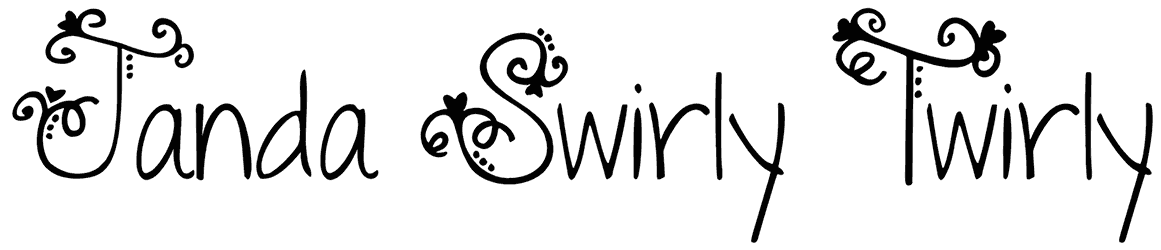
Janda Swirly Twirly Font
Designed byKimberly Geswein
If you want to add a dramatic and romantic touch to your artwork, including gift cards, billboards, greeting cards, menus, and illustrations, we offer you to utilize a doodle font such as Janda Swirly Twirly to achieve your goals and level up any kind of graphic content. Due to its soft style, it leads to a sense of kindness, precision, drama, and dreaminess.